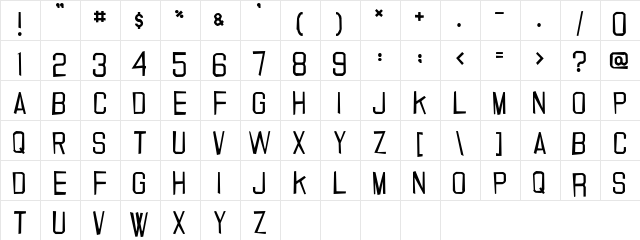
20.000 dollar bail Regular
Design Context for 20.000 dollar bail
20.000 dollar bail is a composed and adaptable typeface that performs quietly and consistently across a wide range of design contexts.
Pro Tip: Use 20.000 dollar bail in both headline and body roles to test its range before committing to a single application.